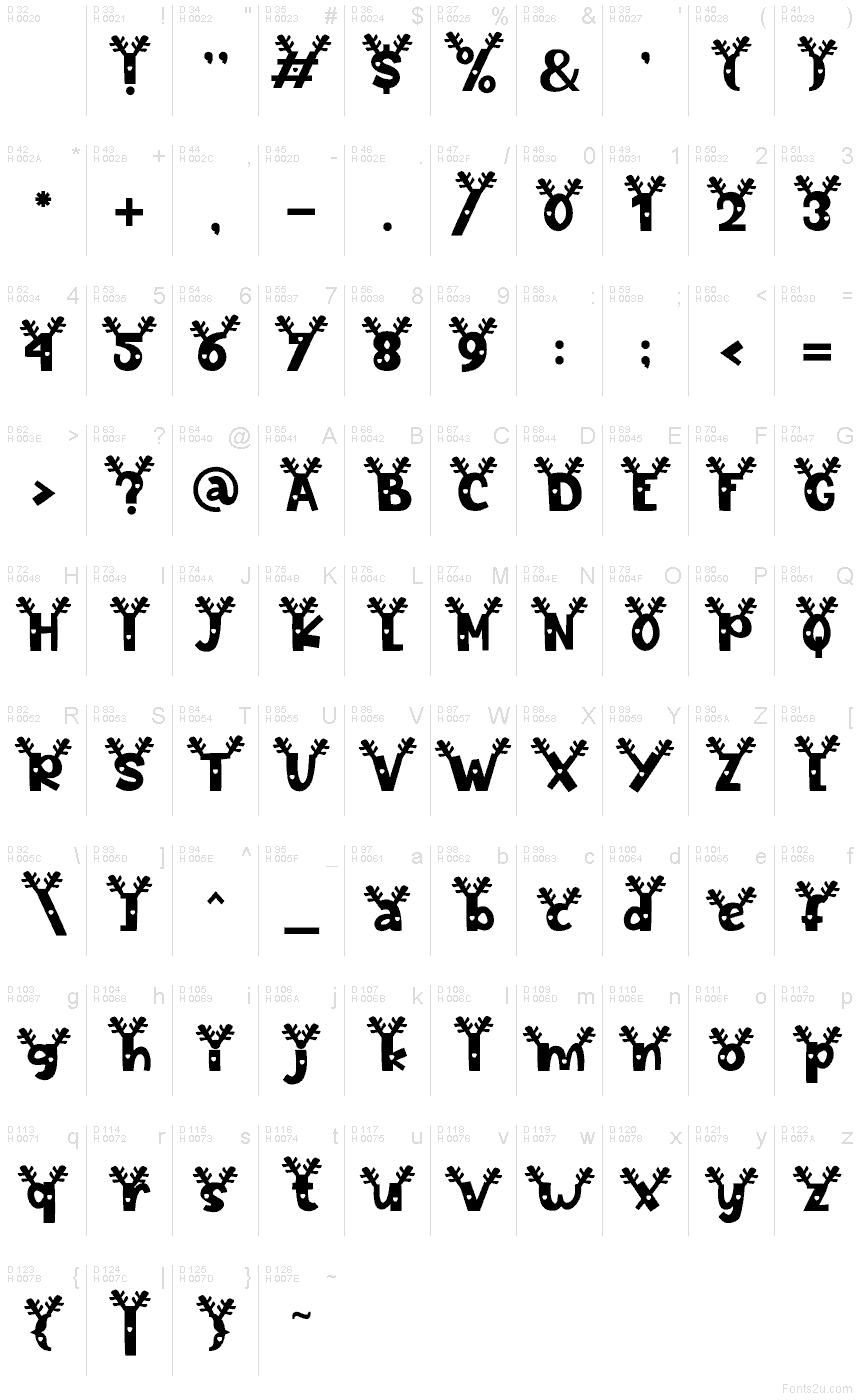
Frosty Faktur Deer
Frosty Faktur Deer font by PutraCetol Studio is a free decorative holiday typeface that turns every word into a tiny reindeer parade. Chunky, rounded letters form a solid, inky base, while antler-like flourishes sprout from the top, creating a playful snowy border that feels hand-cut and crafty. The Frosty Faktur family vibe is cozy and childlike, making this font feel right at home in cheerful Christmas projects and winter branding.
Using Frosty Faktur Deer, you can bring instant holiday charm to greeting cards, kids’ worksheets, party invitations, classroom decor, social media graphics, gift tags, and festive posters. Its bold, compact shapes stay legible even at larger sizes, so don’t be afraid to scale it up for banners or headers. For balance, pair this free font with a simple sans serif for body copy to keep all the reindeer energy focused on your main message.